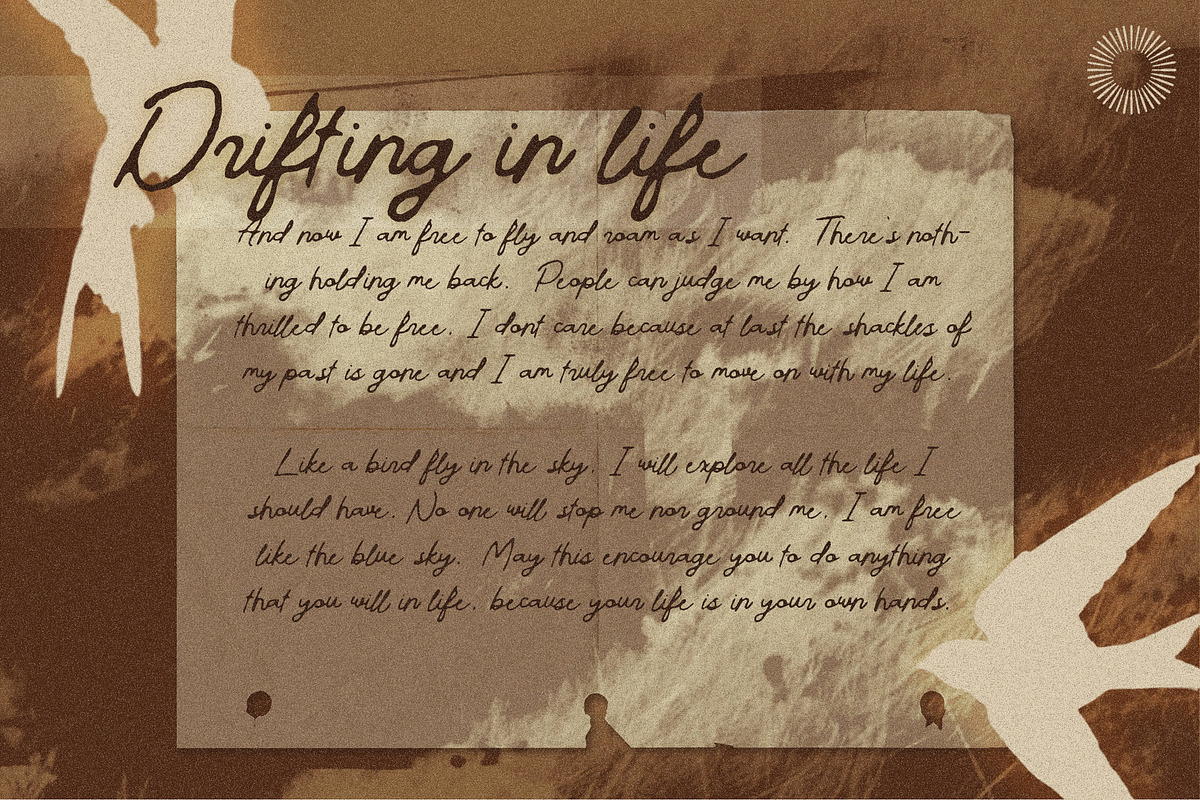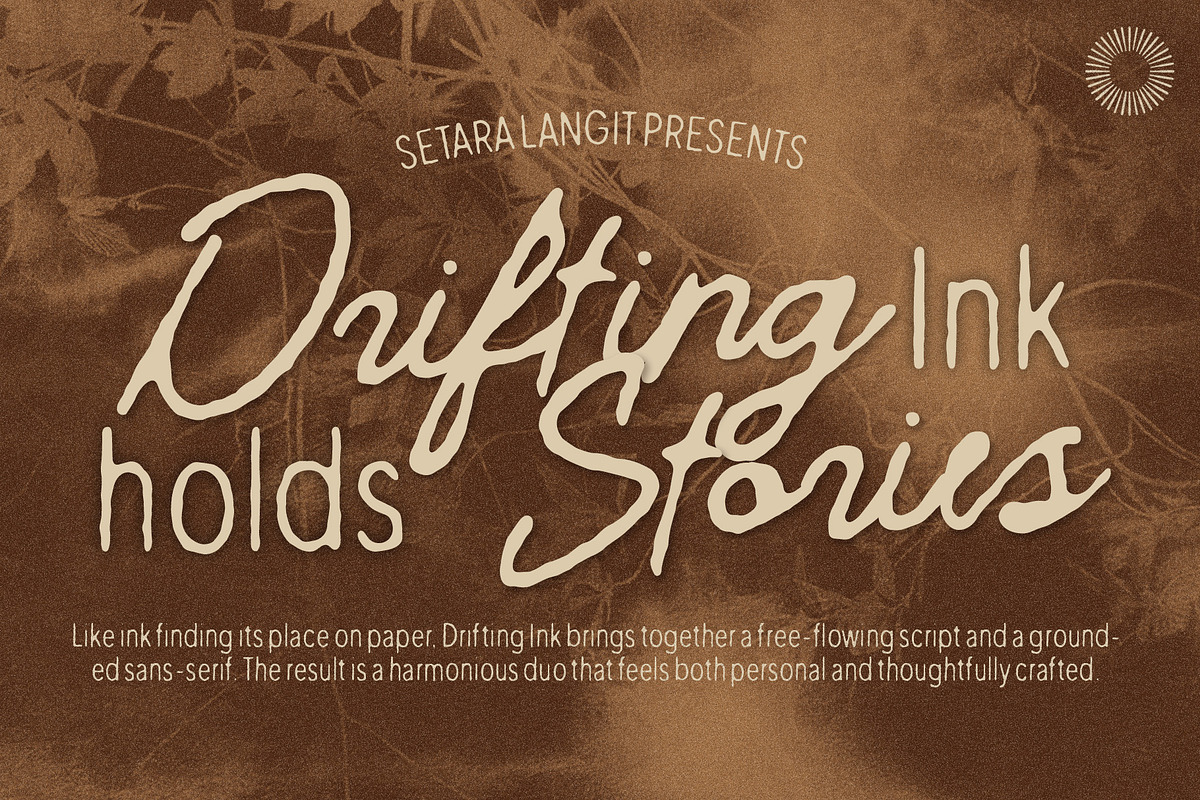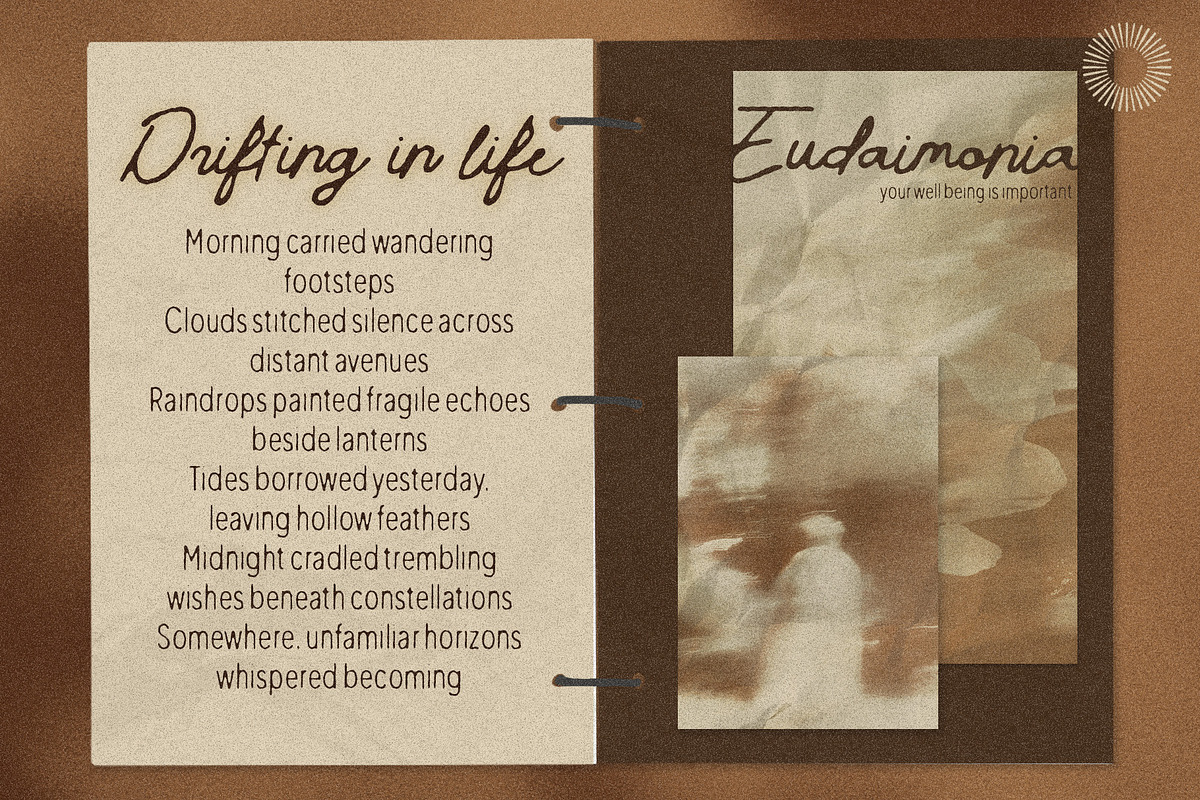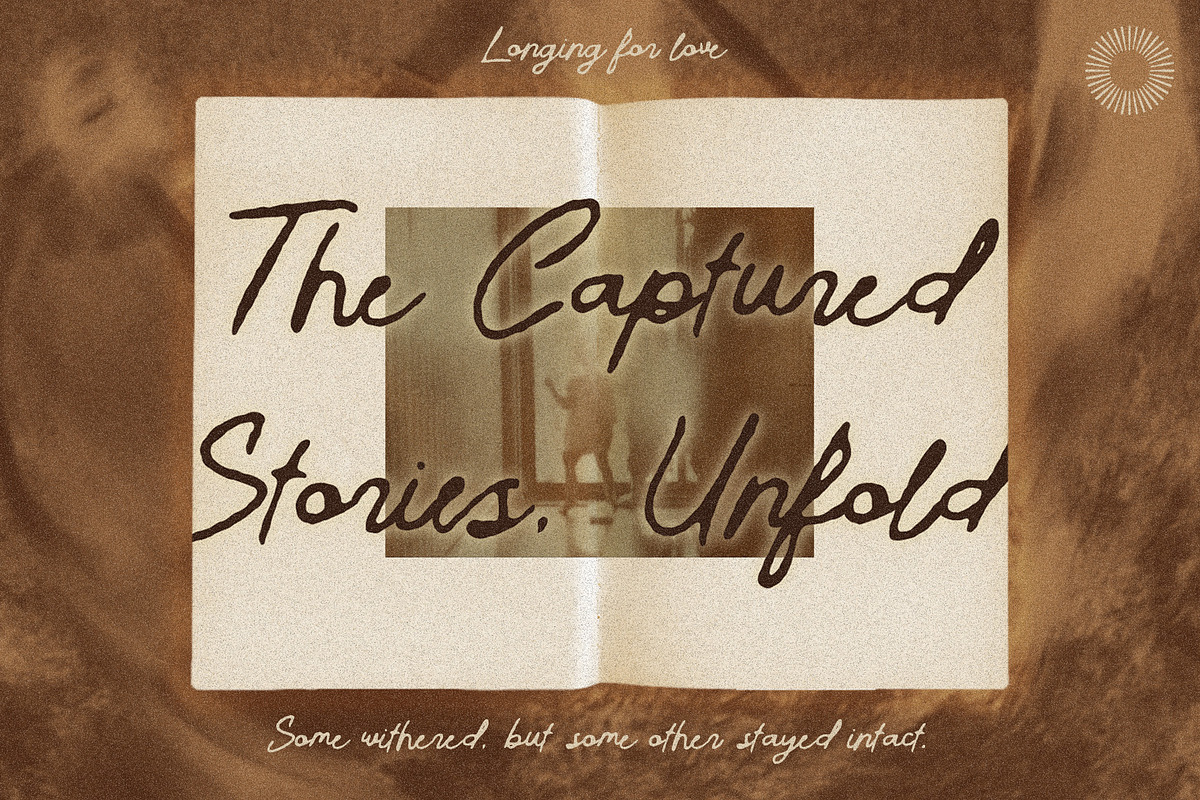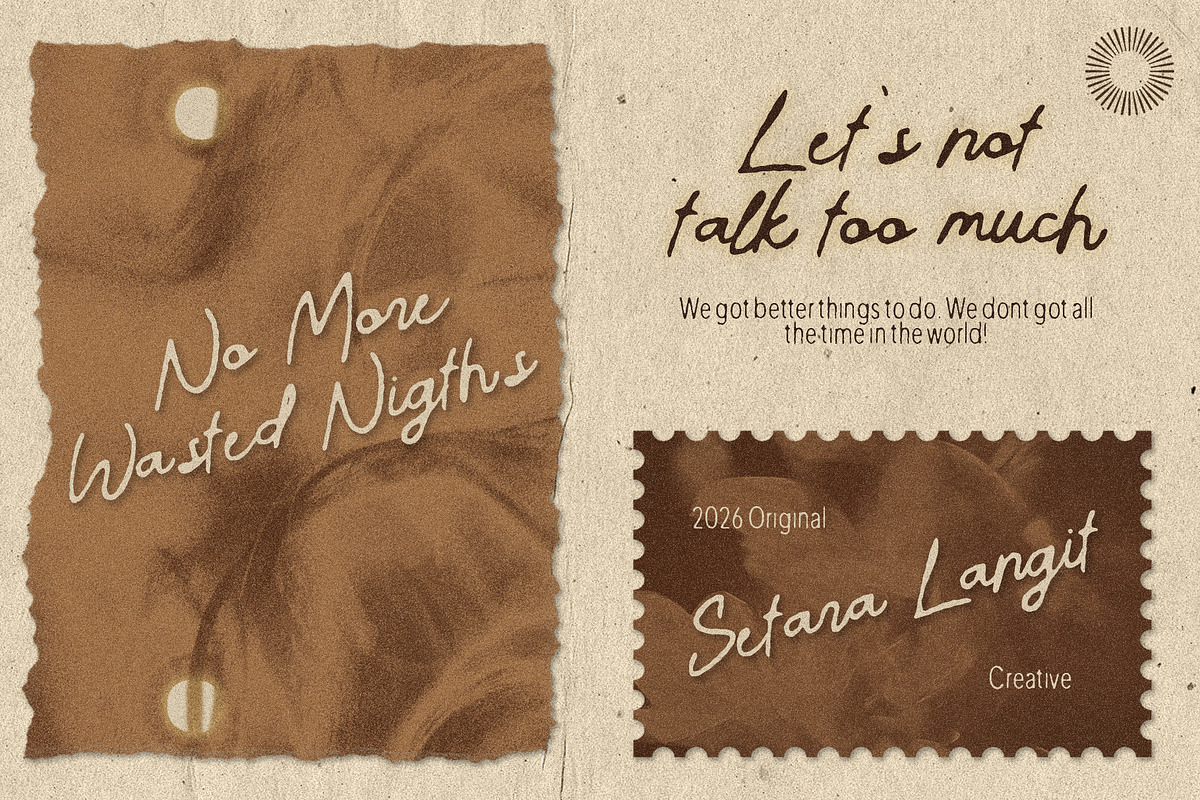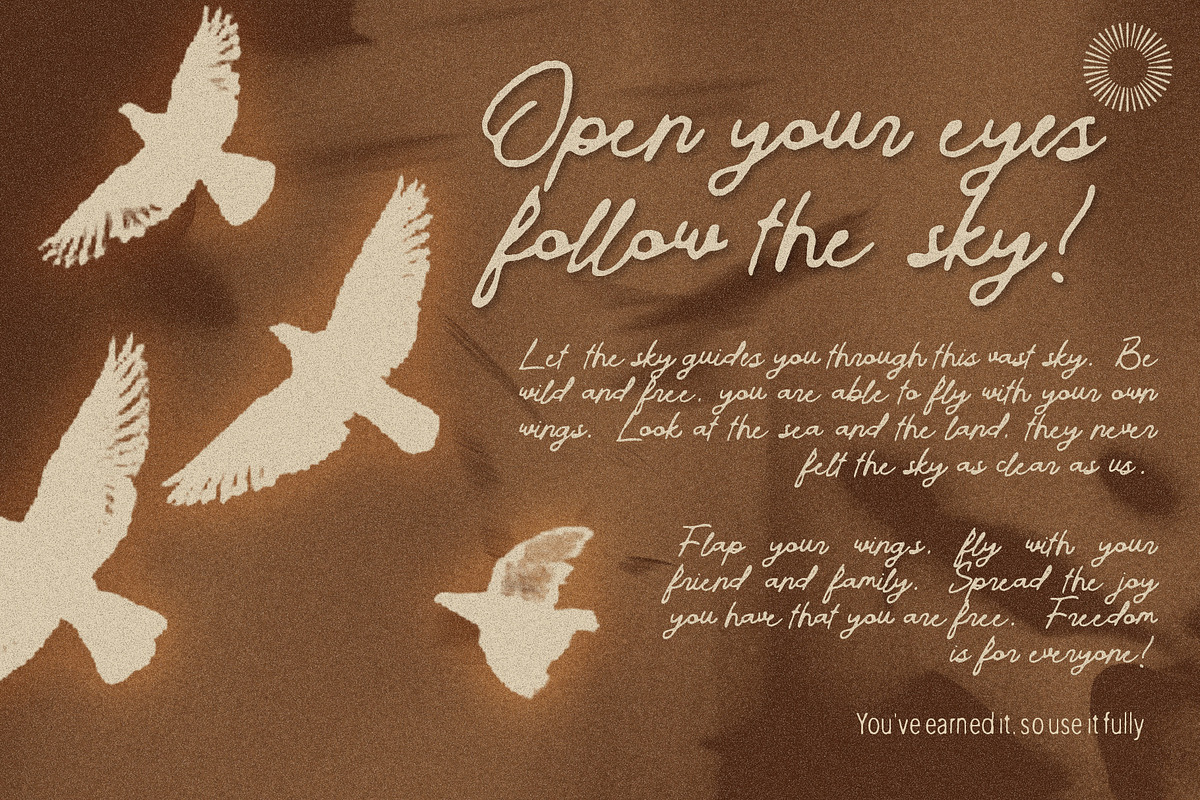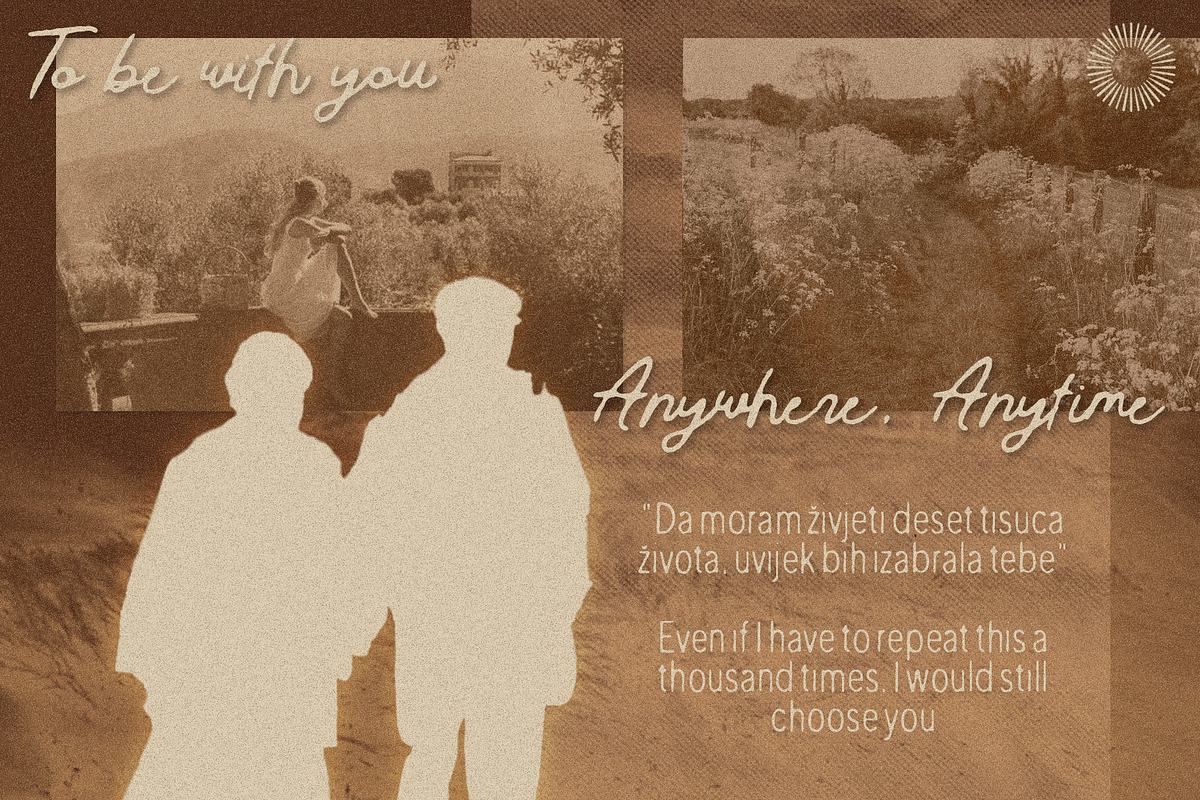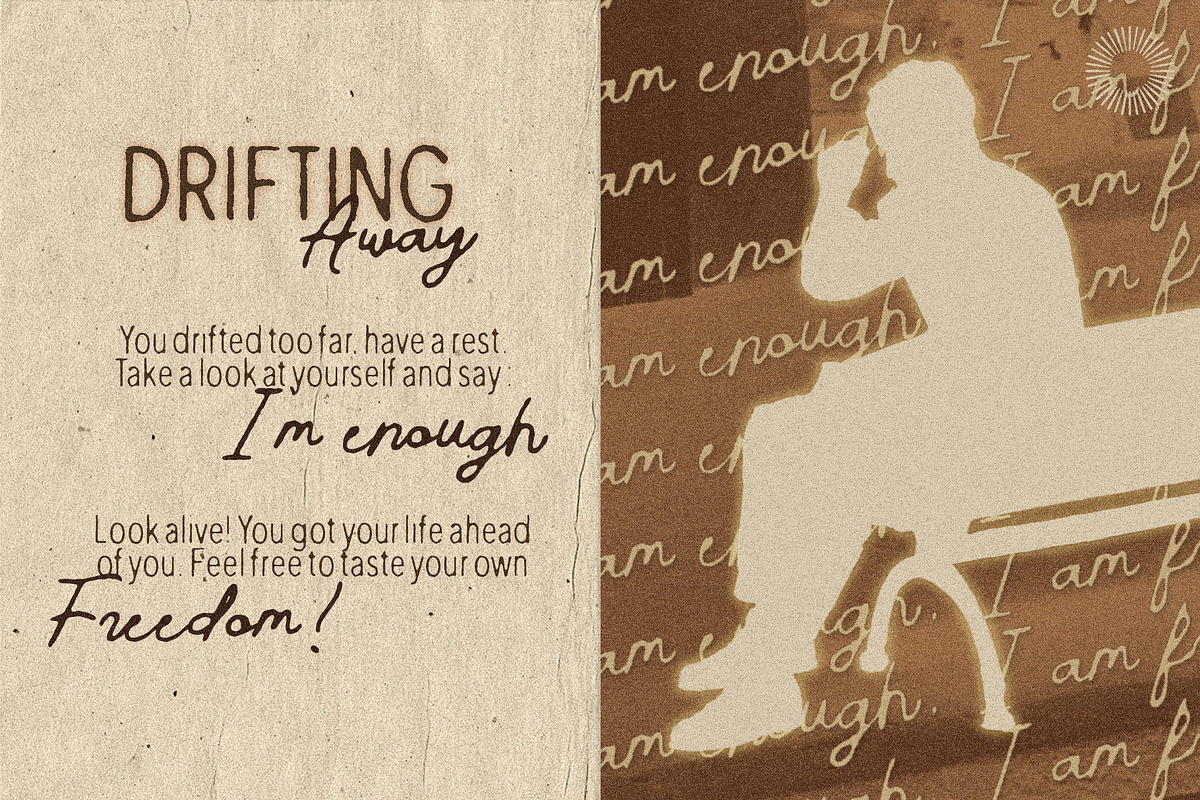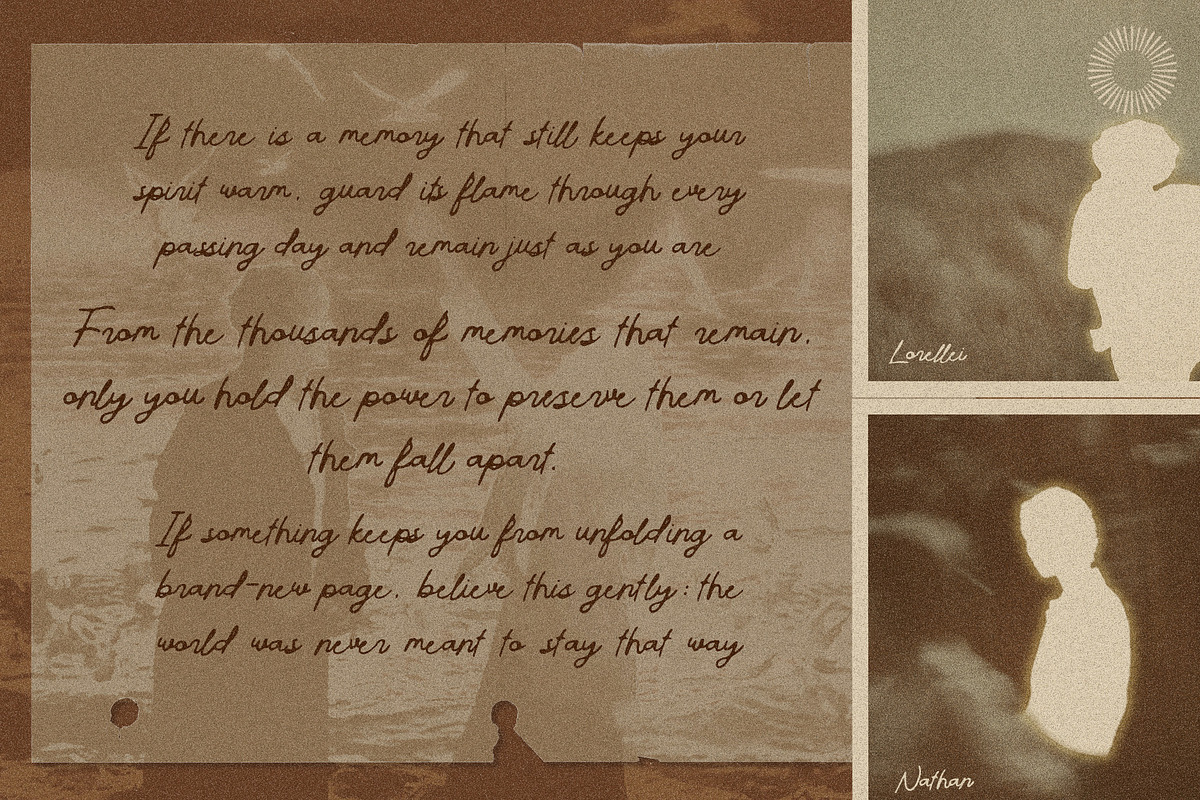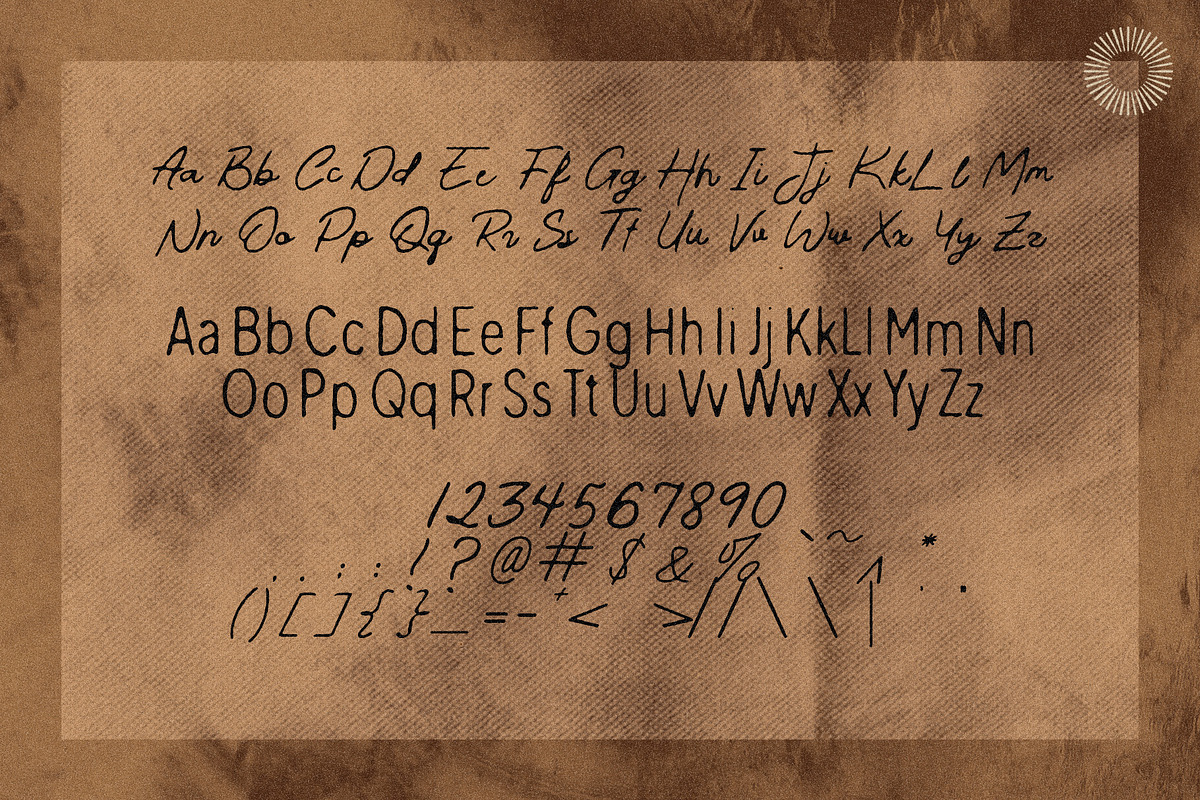
Drifting Ink - Script & Sans
Drifting Ink is a thoughtfully crafted font duo that combines a free-flowing handwritten script with a clean, grounded sans serif. Inspired by the natural movement of ink across paper, it captures the balance between expression and clarity.
The expressive script brings warmth, personality, and organic movement, while the modern sans serif provides structure and versatility. Together they create a harmonious pairing that feels authentic, contemporary, and effortlessly creative.
Whether you're building a brand identity, designing editorial layouts, or creating social media content, Drifting Ink offers the flexibility to create typography that feels both personal and professional.
Handwritten script font
Modern sans serif font
Uppercase & lowercase letters
Ready-to-use font duo
Script + sans serif pairing
Organic handwritten movement
Clean modern typography
Natural creative aesthetic
Versatile branding duo